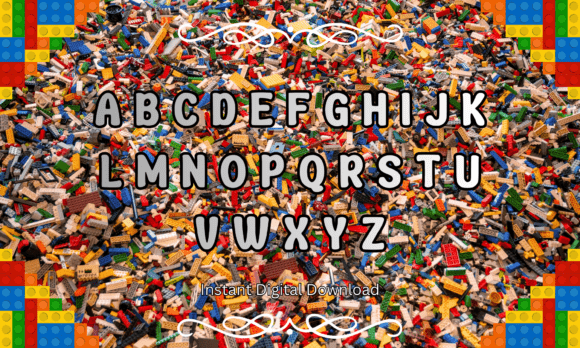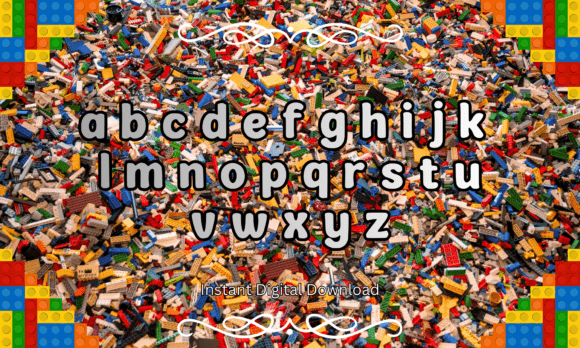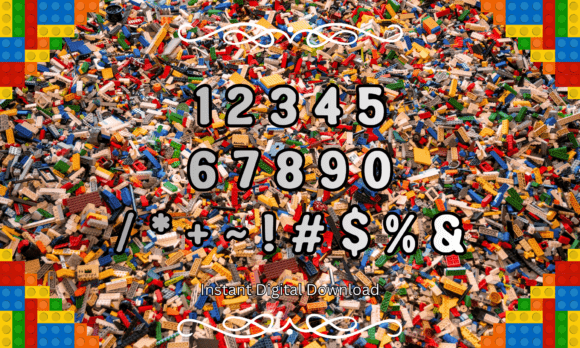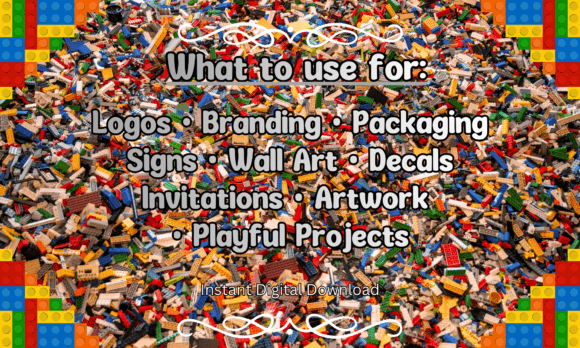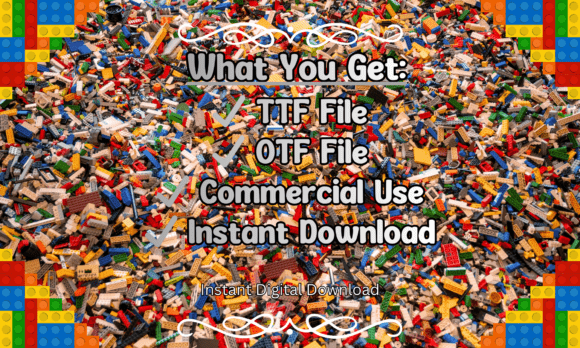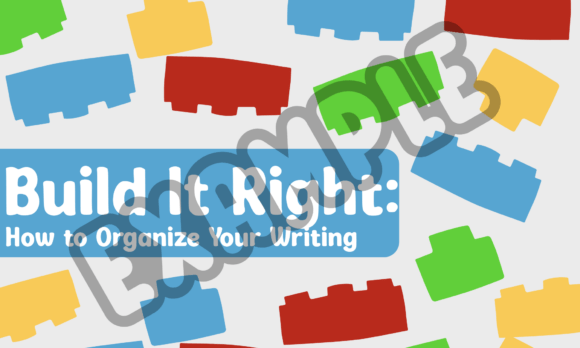
Introduction to Playful Block Font
Do you remember the thrill of building with colorful blocks as a child? The way the shapes and colors came together to create something entirely new and exciting? As a designer, you might be looking for a font that captures that same sense of playfulness and creativity. Enter the Playful Block Font, a bold, chunky display font that’s perfect for kids’ designs, toy branding, and fun-loving projects.
The Playful Block Font is more than just a design resource – it’s a way to tap into the imagination and energy of childhood. With its high-quality design and transparent background, this font is a valuable addition to any designer’s toolkit. Whether you’re working on a creative project or simply need a fun font for a birthday invitation or YouTube thumbnail, the Playful Block Font is sure to bring a smile to your face.
Key Features of Playful Block Font
- High-quality design suitable for a creative project, with a unique and playful style.
- Perfect for adding a fun and playful touch to various design elements, from logos to graphics and more.
Honest Review: Playful Block Font
I recently came across the Playful Block Font, and I must say it’s a great addition to any design project. As a designer, I appreciate high-quality fonts that can bring a touch of personality to my work.
Here are some of the things that work well with the Playful Block Font:
- ✨ It’s incredibly versatile and can be used for a wide range of creative projects.
- ✨ The font is easy to read, even at smaller sizes.
- ⚠️ The font may not be suitable for formal or professional projects due to its playful nature.
- ⚠️ Some users may find the font too casual or childish.
Overall, I think the Playful Block Font is a great design resource. It’s perfect for designers who want to add a bit of whimsy to their work without sacrificing quality.
Tips for Getting the Most Out of Playful Block Font
For a high-quality design, use the Playful Block Font on a transparent background to create a clean and modern look. Experiment with different font sizes and colors to achieve the desired effect.
The Playful Block Font is perfect for designing social media graphics, presentations, and marketing materials. Its unique style and transparent background make it a great choice for creating eye-catching designs.